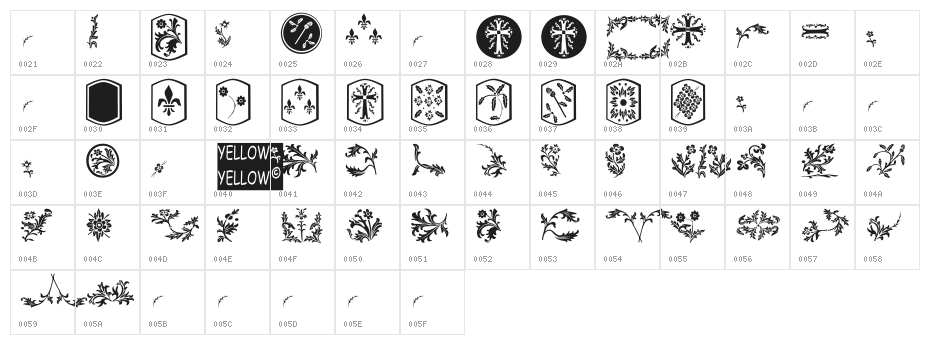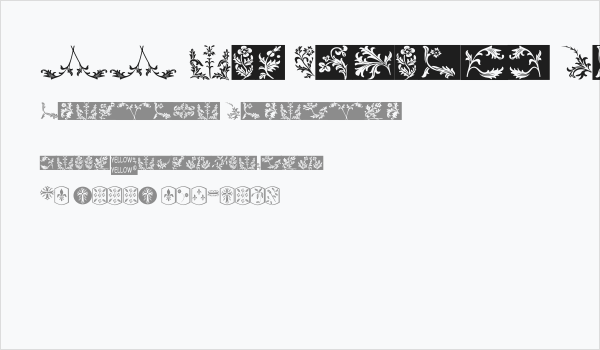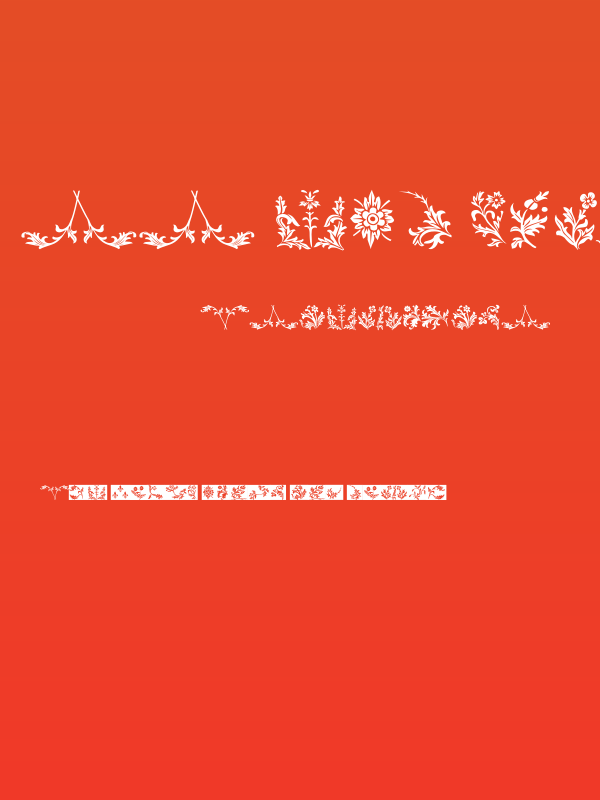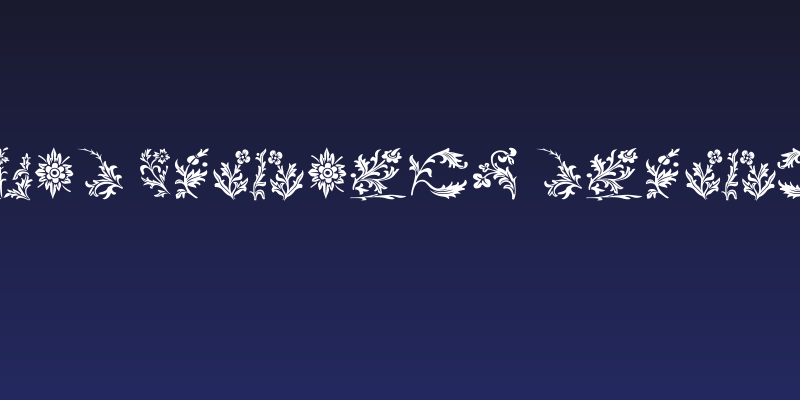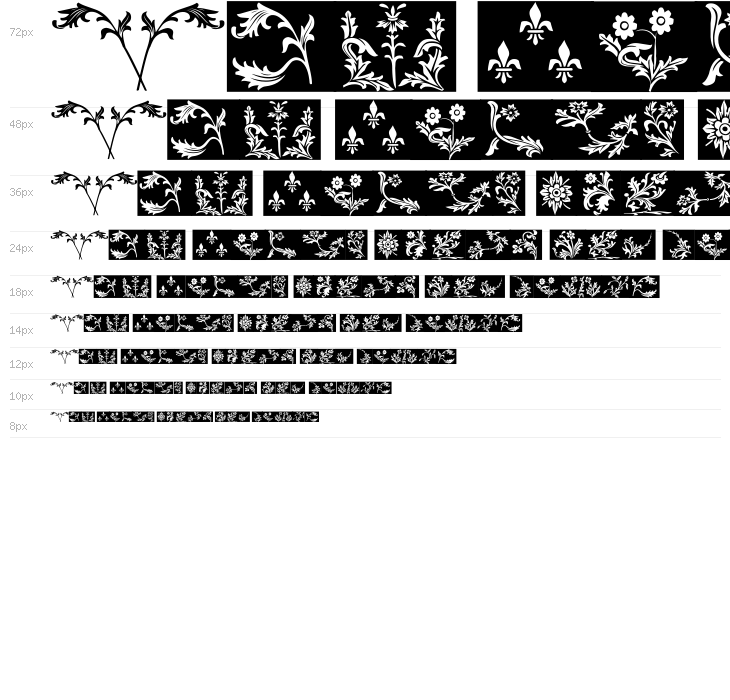
YY Old English Dingbats Font
YY Old English Dingbats Description
This collection features a series of intricate and ornate dingbats inspired by old English floral and heraldic designs. Each symbol is meticulously crafted, showcasing a variety of floral motifs, including leaves, flowers, and vines, as well as heraldic emblems like shields and crosses. The designs are highly decorative, with a classic and vintage appeal, making them suitable for adding a touch of elegance and historical charm to any project. The symbols are presented in a monochrome style, emphasizing their detailed line work and intricate patterns.
| Use Case | Decorative elements, Borders, Emblems |
| Proposed Projects | Ideal for wedding invitations, vintage-themed designs, book covers, decorative borders, and historical projects. |